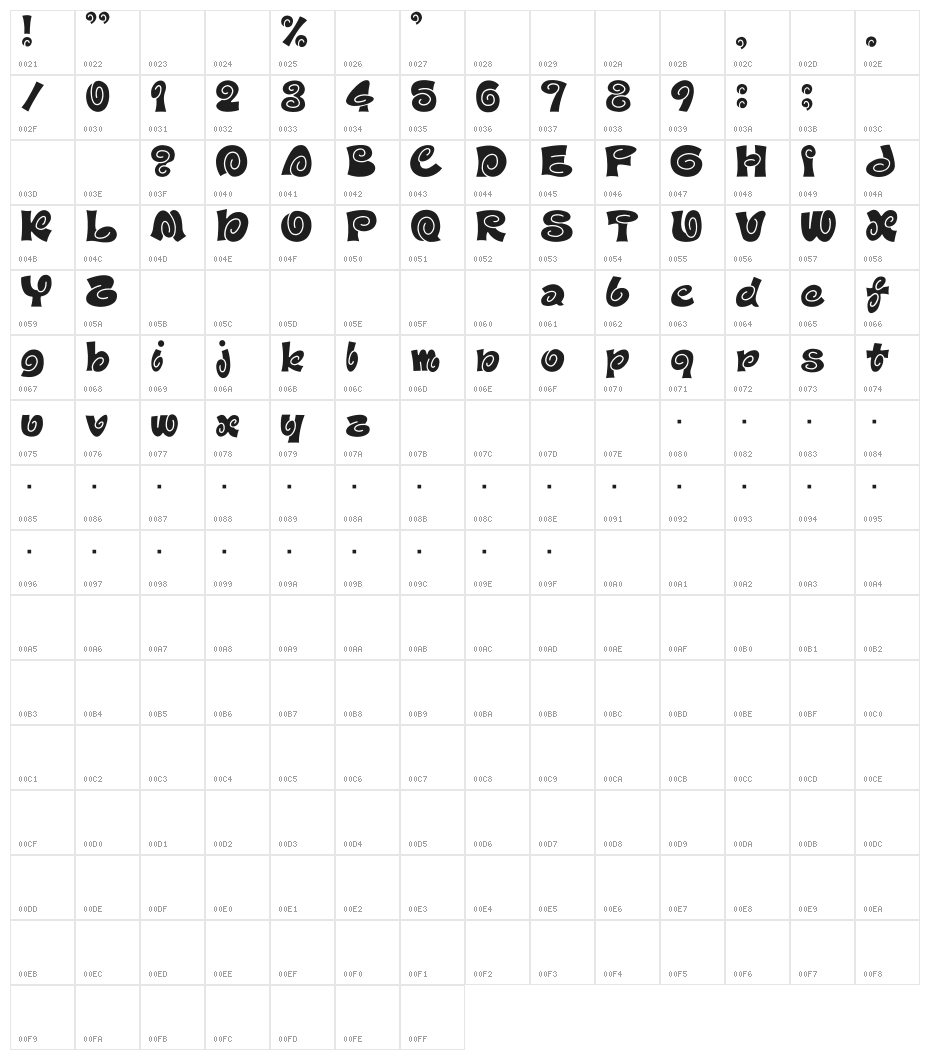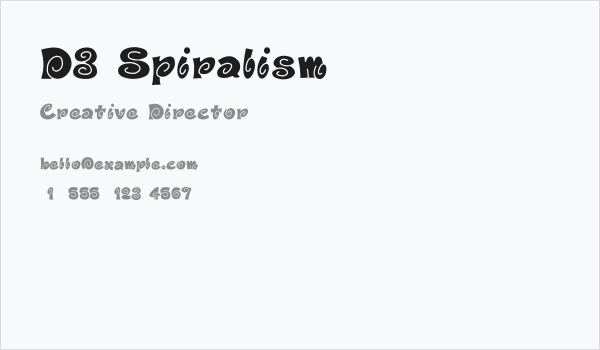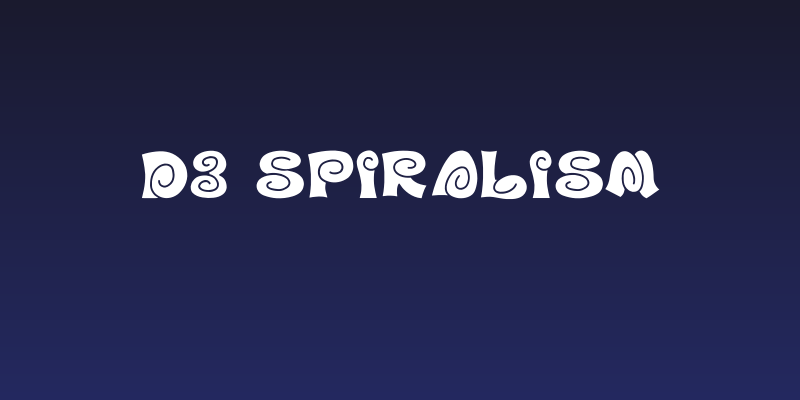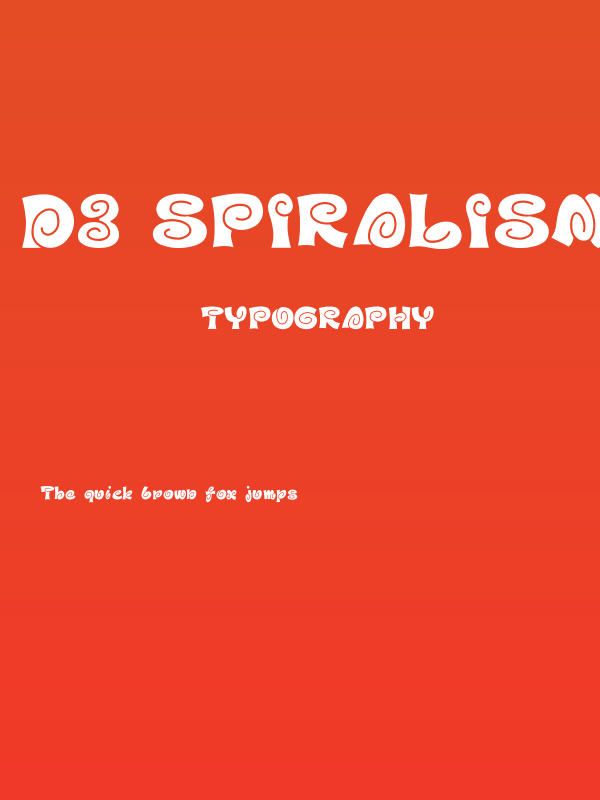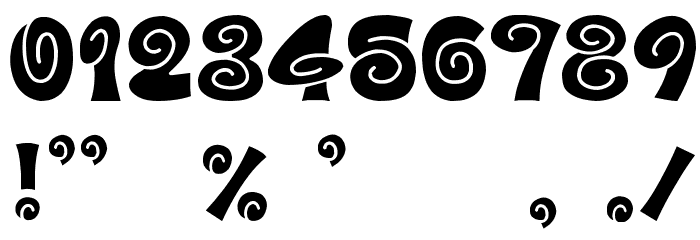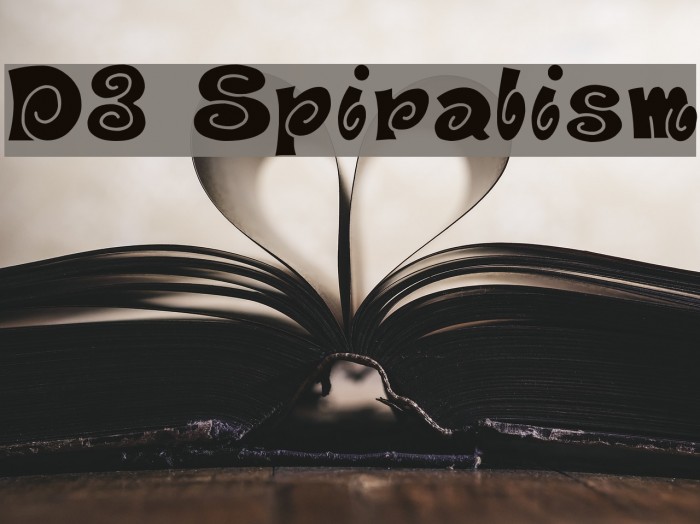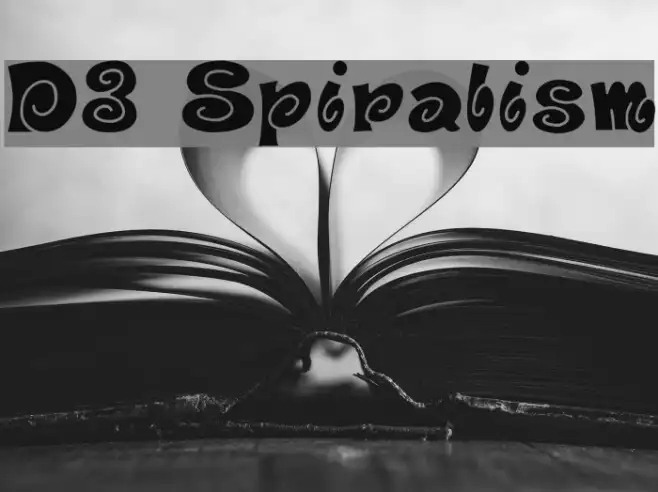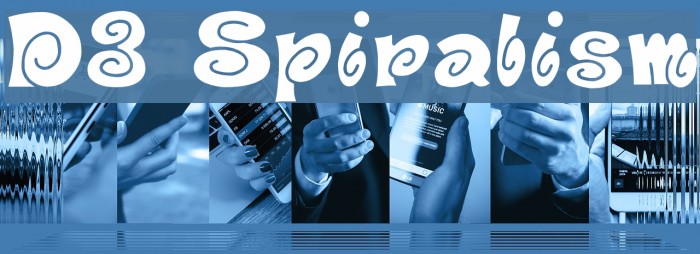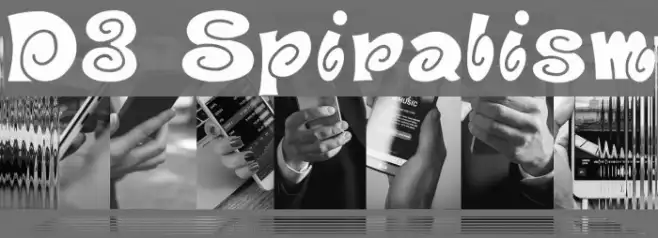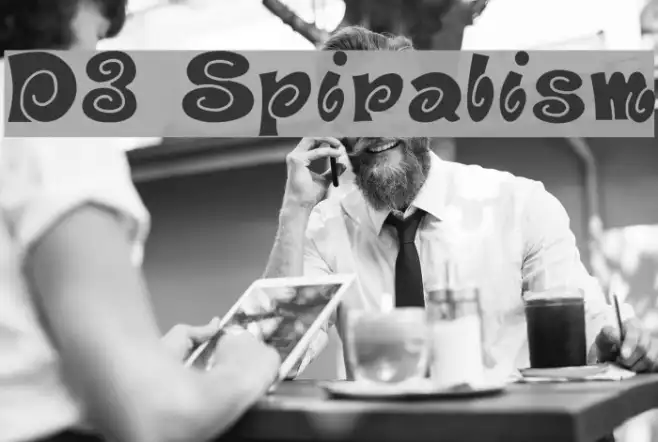
D3 Spiralism Font
D3 Spiralism Description
This font features a bold and playful design with a unique spiral motif integrated into each character. The letters are thick and rounded, giving them a whimsical and eye-catching appearance. The uppercase and lowercase letters maintain a consistent style, with the spirals adding a dynamic and energetic feel. The numbers and special characters follow the same design principles, ensuring a cohesive look across all elements. This font is ideal for projects that require a fun and engaging aesthetic, making it perfect for creative and informal applications.
| Proposed Projects | Ideal for children's books, playful branding, party invitations, and creative posters. |